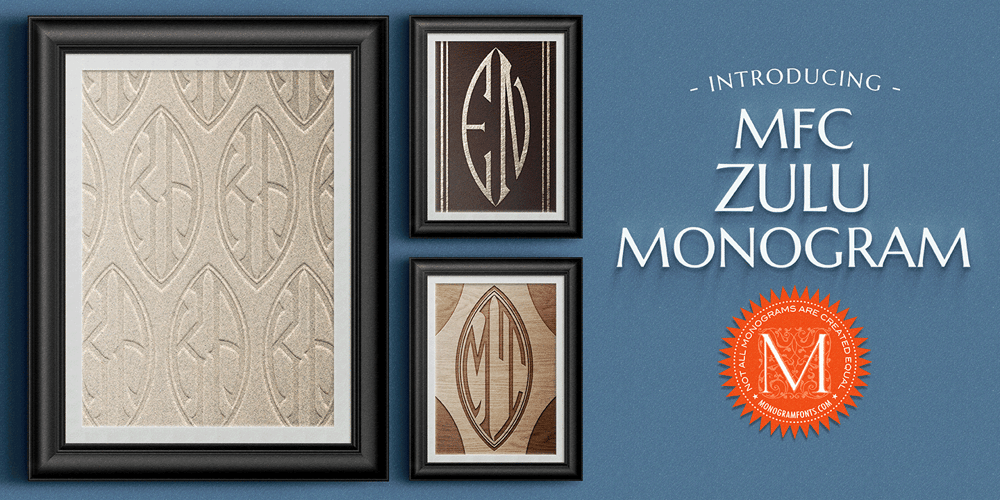
MFC Zulu Monogram Font Family was designed by Jim Lyles, Brian J. Bonislawsky and published by Monogram Fonts Co.. MFC Zulu Monogram contains 4 styles and family package options. The inspiration source for Zulu Monogram is a vintage publication called “Bibliotheque D.M.C: Alphabets et Monogrammes 2nd Series”. This wonderful design is an alternative to the diamond shape monogram that dominated monogram at the time. A Zulu shield-like form, this monogram style is now digitally recreated and revived for modern use in Zulu Monogram, with two letter monograms and a selection of additional frame styles for a final classy touch! Download and view the MFC Zulu Monogram Guidebook if you would like to learn a little more.